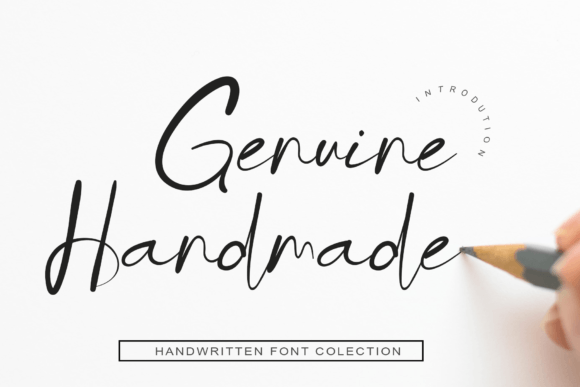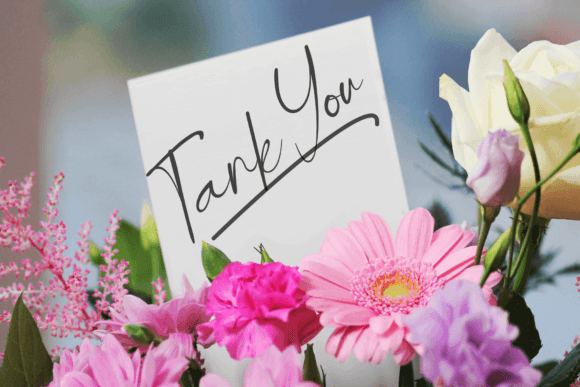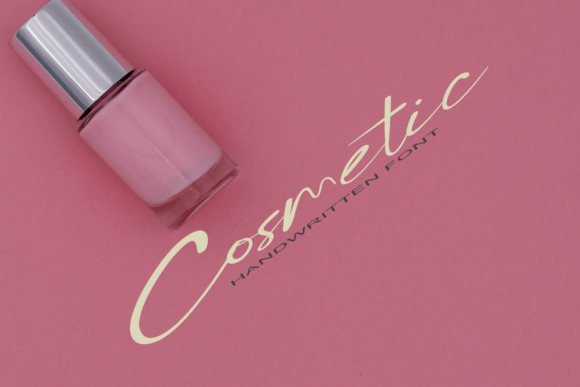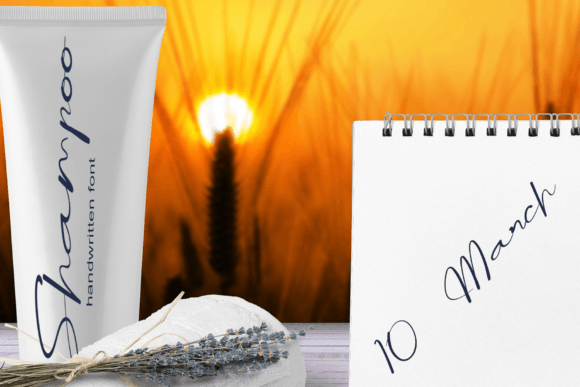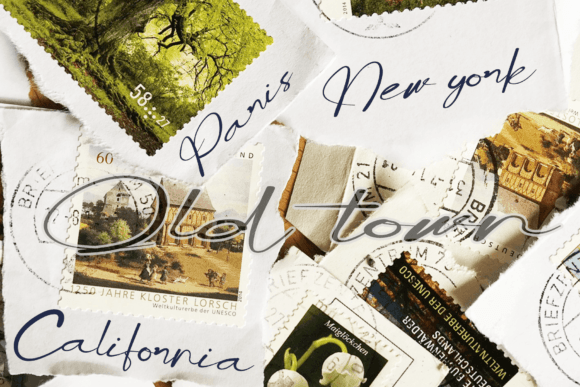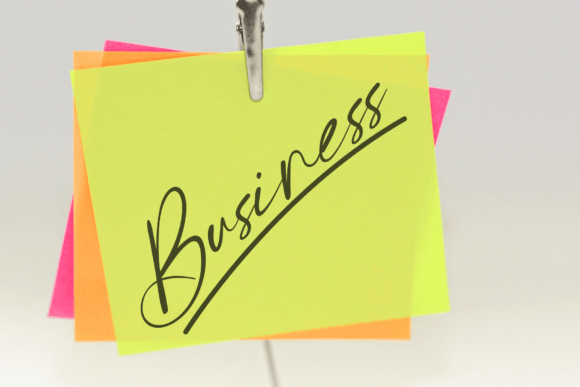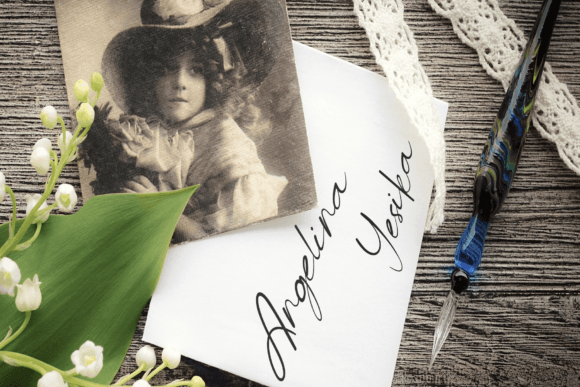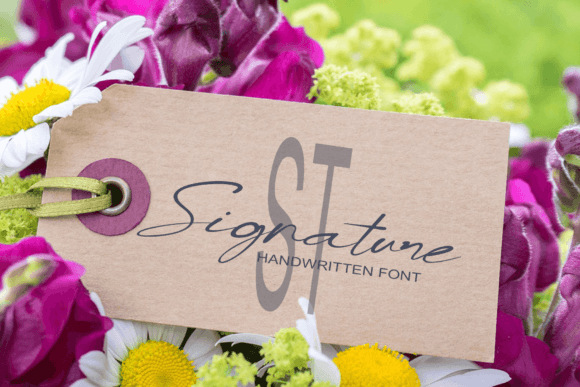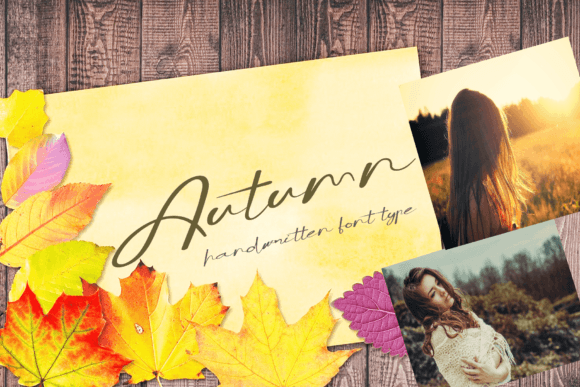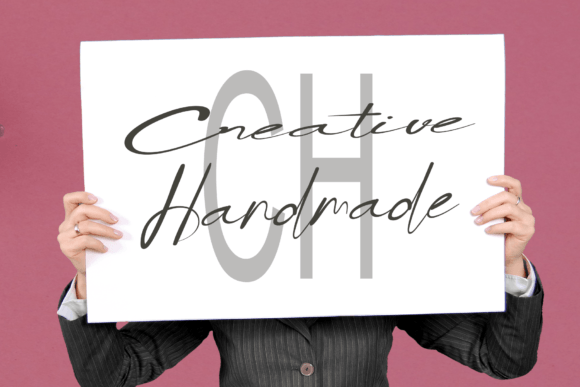
Genuine Handmade Font
About Genuine Handmade Font
“Genuine Handmade” isn’t just a font; it’s a testament to style and elegance, meticulously crafted to add a touch of sophistication to your designs. Its handwritten charm exudes authenticity, making it a perfect choice for a myriad of creative projects. Whether you’re working on wedding invitations, thank you cards, quotes, greeting cards, logos, business cards, or any other design in need of a handwritten touch, Genuine Handmade effortlessly elevates your creations.
Imagine your wedding invitations adorned with the stylish and elegant strokes of Genuine Handmade, each letter exuding grace and refinement. Picture your thank you cards, each word written in this font, expressing gratitude with a touch of timeless beauty. Quotes and inspirational messages come to life with Genuine Handmade, the handwritten touch adding depth and character to every word.
Genuine Handmade isn’t just a font; it’s an embodiment of authenticity and sophistication. Its elegance makes it versatile, allowing it to seamlessly integrate into various contexts, enhancing the overall aesthetics of your designs. When used in logos and business cards, Genuine Handmade becomes a mark of professionalism and creativity, leaving a lasting impression on clients and partners.
The font’s stylish and incredibly elegant handwritten script isn’t just visually appealing; it’s emotionally resonant. It’s not just about letters on a page; it’s about conveying sentiments, capturing the essence of special moments, and turning ordinary words into profound expressions. Genuine Handmade adds a layer of depth to your designs, making them more memorable and impactful.
In a world where first impressions matter, Genuine Handmade stands out as a symbol of quality and sophistication. Its timeless elegance adds an element of refined beauty to your designs, making them unforgettable. When you choose Genuine Handmade for your projects, you’re not just selecting a font; you’re making a statement—a statement of authenticity, elegance, and attention to detail.
So, whether you’re a professional designer striving for excellence or an individual with a passion for aesthetics, Genuine Handmade is your trusted companion. It’s more than just a font; it’s an opportunity to infuse your designs with the grace of handwritten elegance. Let Genuine Handmade be the brush that paints your creativity and the handwritten touch that transforms your designs into works of art. With Genuine Handmade, your creative endeavors are bound to shine with timeless sophistication and elegance.